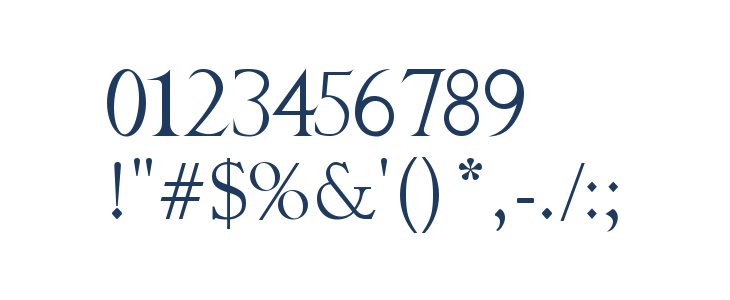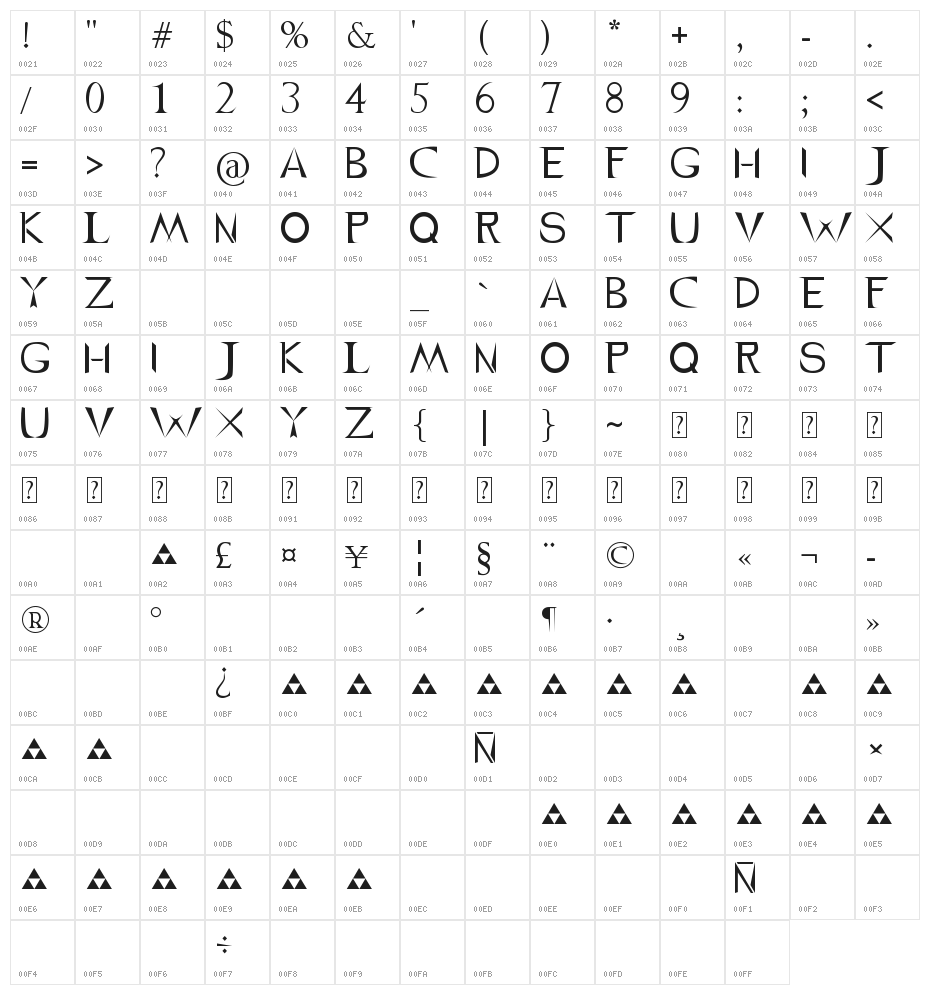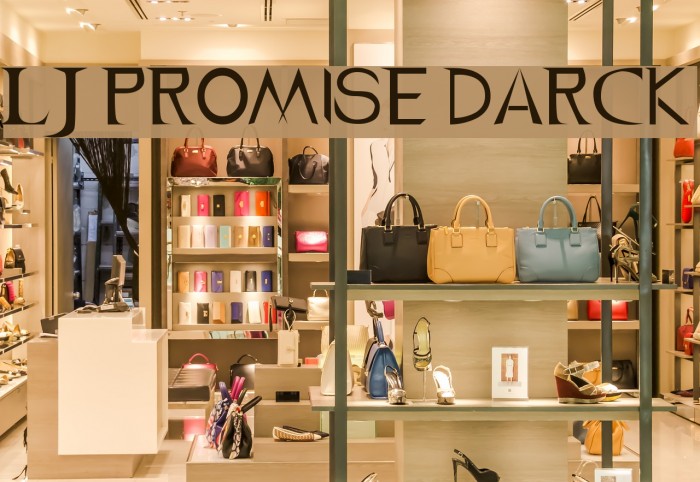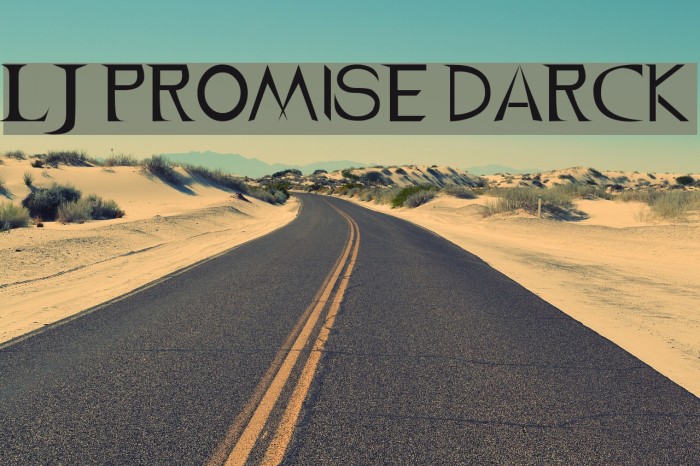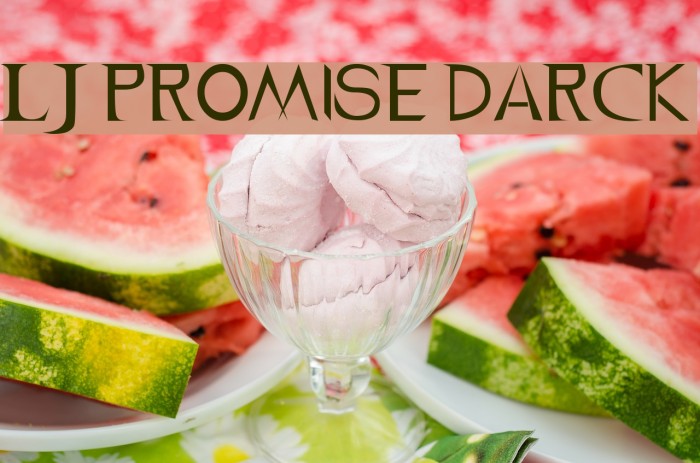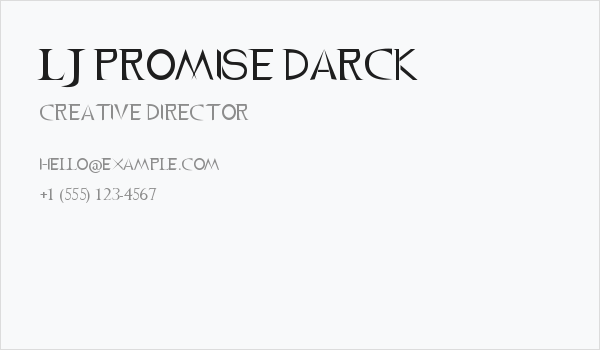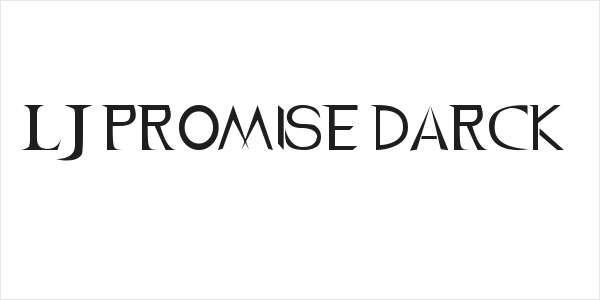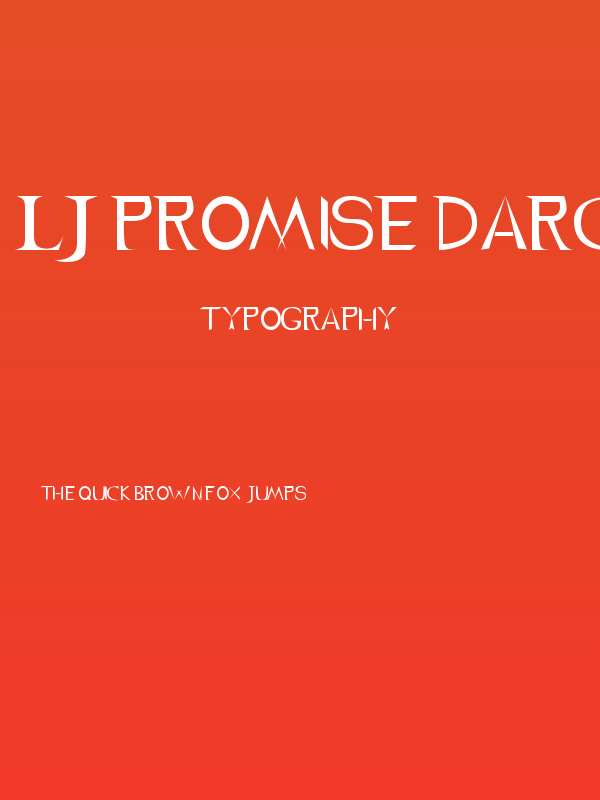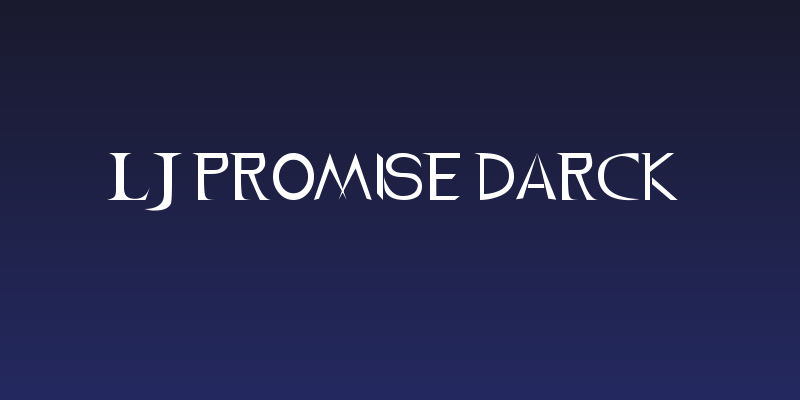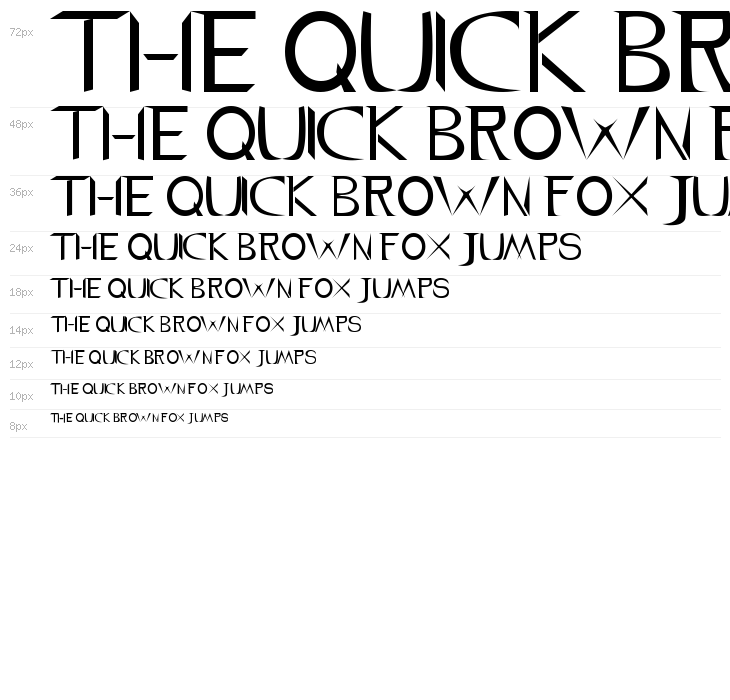
LJ Promise Darck Font
LJ Promise Darck Description
This font features a unique and striking design with sharp, angular edges and a modern flair. The uppercase letters are bold and dynamic, with a distinct geometric influence that gives them a futuristic appearance. The lowercase letters maintain the same angular style, creating a cohesive look throughout. The numerals are equally bold, with a consistent weight and style that complements the alphabet. Special characters are included, each designed to match the overall aesthetic. This font is perfect for making a statement, with its high contrast and eye-catching design.
| Proposed Projects | Ideal for branding, logos, posters, and any project needing a modern, edgy look. |